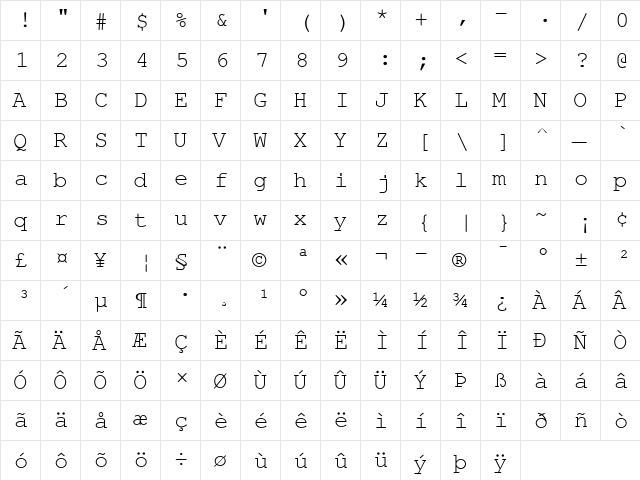
Nimbus Mono L Regular
| Foundry | by URW |
Design Context for Nimbus Mono L Typeface
Nimbus Mono L brings the precise, column-aligned rhythm of monospaced typography to designs that value technical clarity and systematic order.